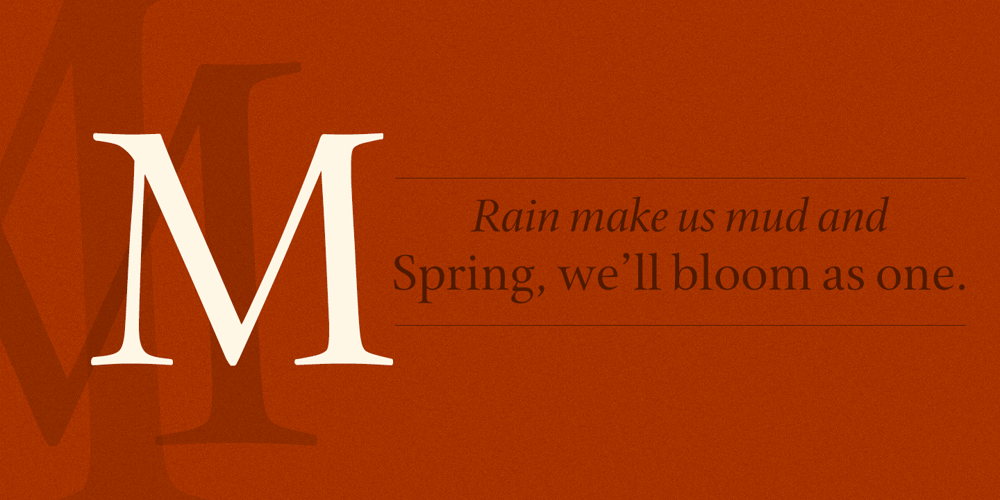
Cycles Font Family was designed by Sumner Stone and published by Stone Type Foundry. Cycles contains 41 styles and family package options. Cycles was designed for use in books and other publications with lengthy texts and/or complex typography using different sizes of type. Different versions of Cycles have been designed which are optimized for setting at specific point sizes as was the practice in the days of metal type. Together with Stone Print, SFPL, and Arepo it makes up a superfamily of typefaces.